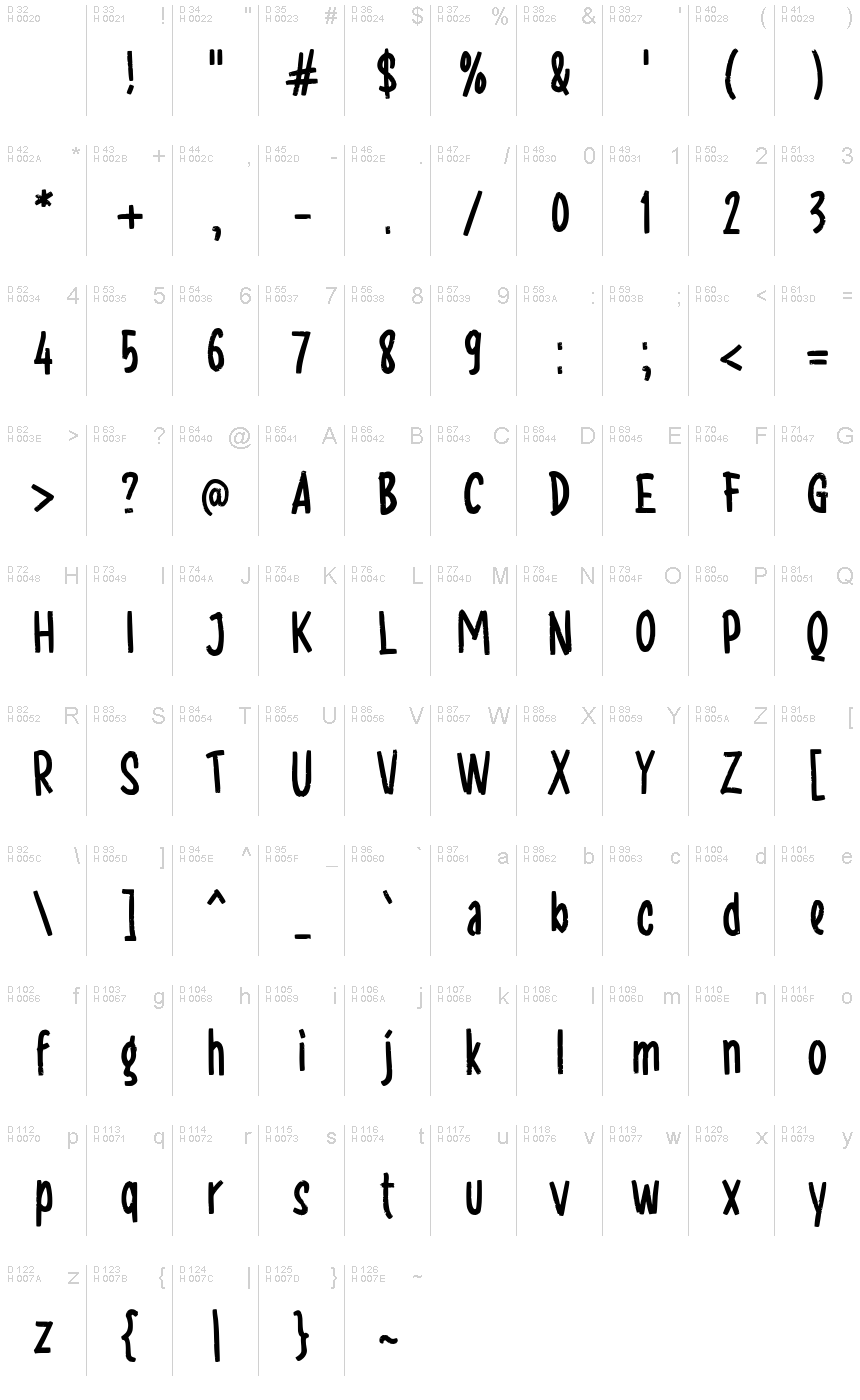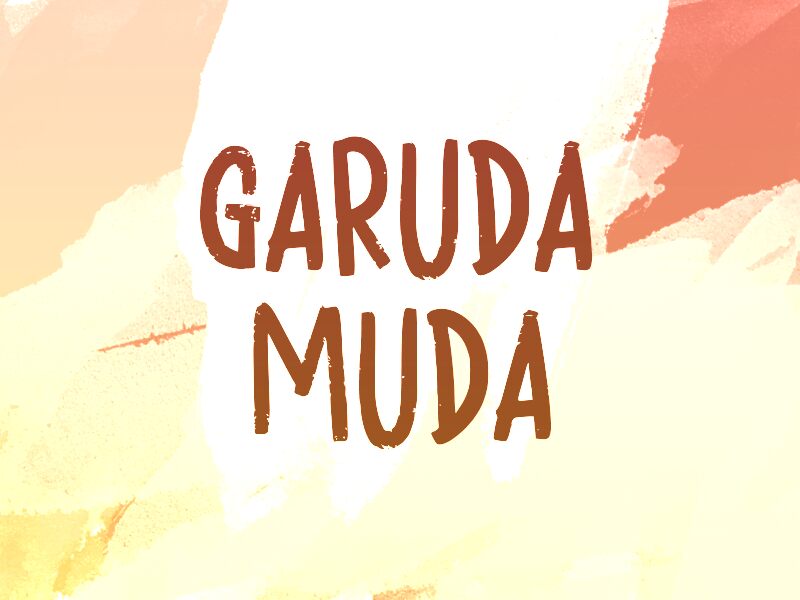
GARUDA MUDA
Garuda Muda is a striking and captivating brush-style font designed by wep. The bold, expressive strokes and condensed form create a dynamic and attention-grabbing aesthetic. This font exudes a sense of fluid movement and energy, lending a distinctive character to any design. Its unique blend of organic fluidity and structural cohesion make it visually compelling, evoking a sense of artistry and craftsmanship.
Garuda Muda's versatility shines through its ability to seamlessly integrate into a wide range of design contexts. Its condensed nature makes it an excellent choice for headlines, titles, and impactful textual elements, where it can command attention and add visual interest. The font's brush-inspired style also lends itself well to branding, packaging, and editorial design, where it can infuse a touch of artistry and personality into the overall aesthetic.